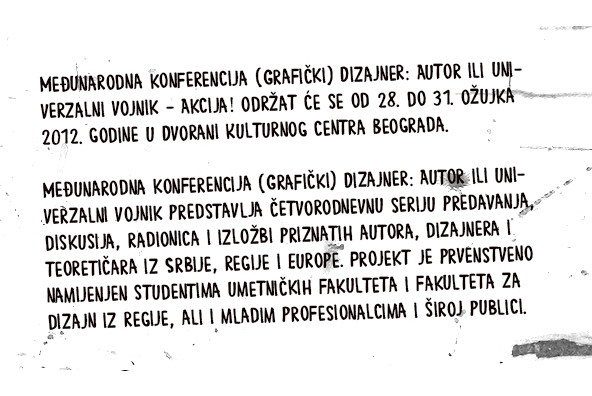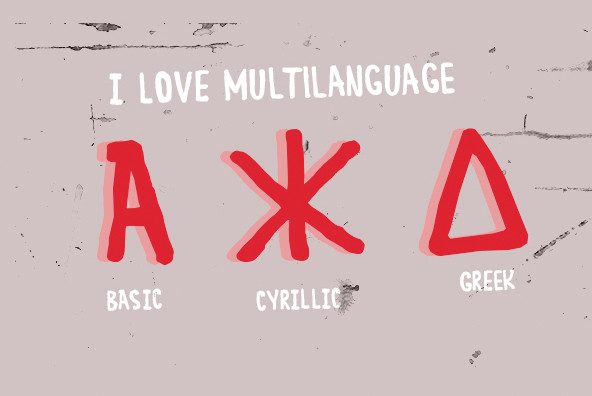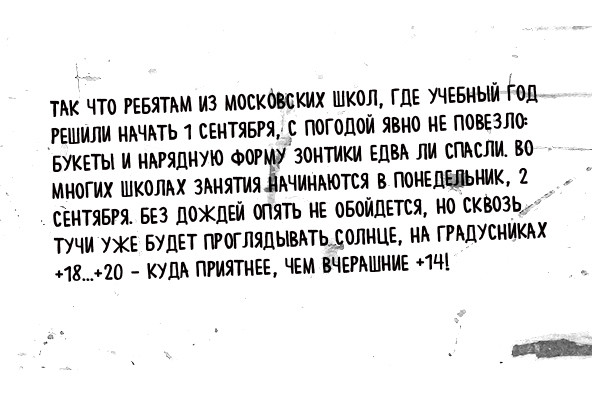
BRC Font
BRC
BRC is a playful, distressed, and decorative font design, created by Rodrigo Araya Salas. Barricada includes language support for Greek + Cyrillic as well.